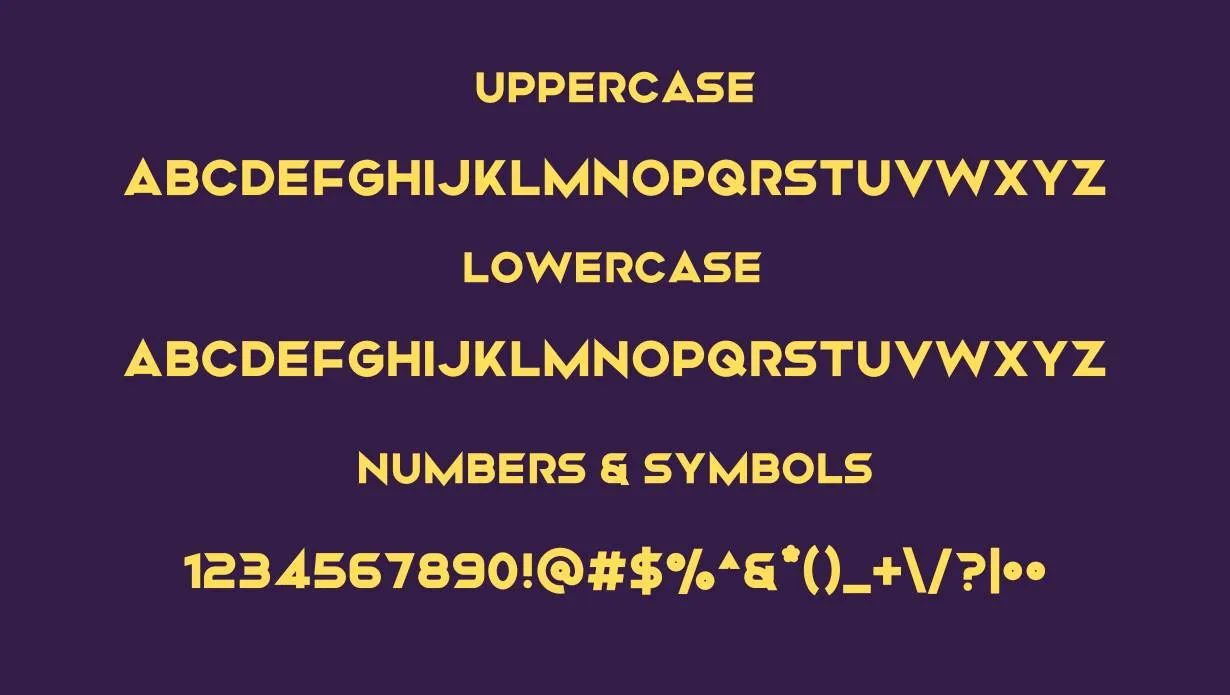
Mismo Font is the chameleon of typefaces, effortlessly adapting to various styles. Its clean lines and modern sensibility make it a go-to choice for contemporary aesthetics.
Whether you’re designing a sleek website, a sophisticated magazine layout, or a trendy poster, Mismo Font brings a touch of modernity and simplicity, allowing your text to shine in diverse settings. By using the droid sans font alongside this typeface, you can achieve remarkable displays.
| Name | Mismo Font |
| Designer | Jéson Garnica |